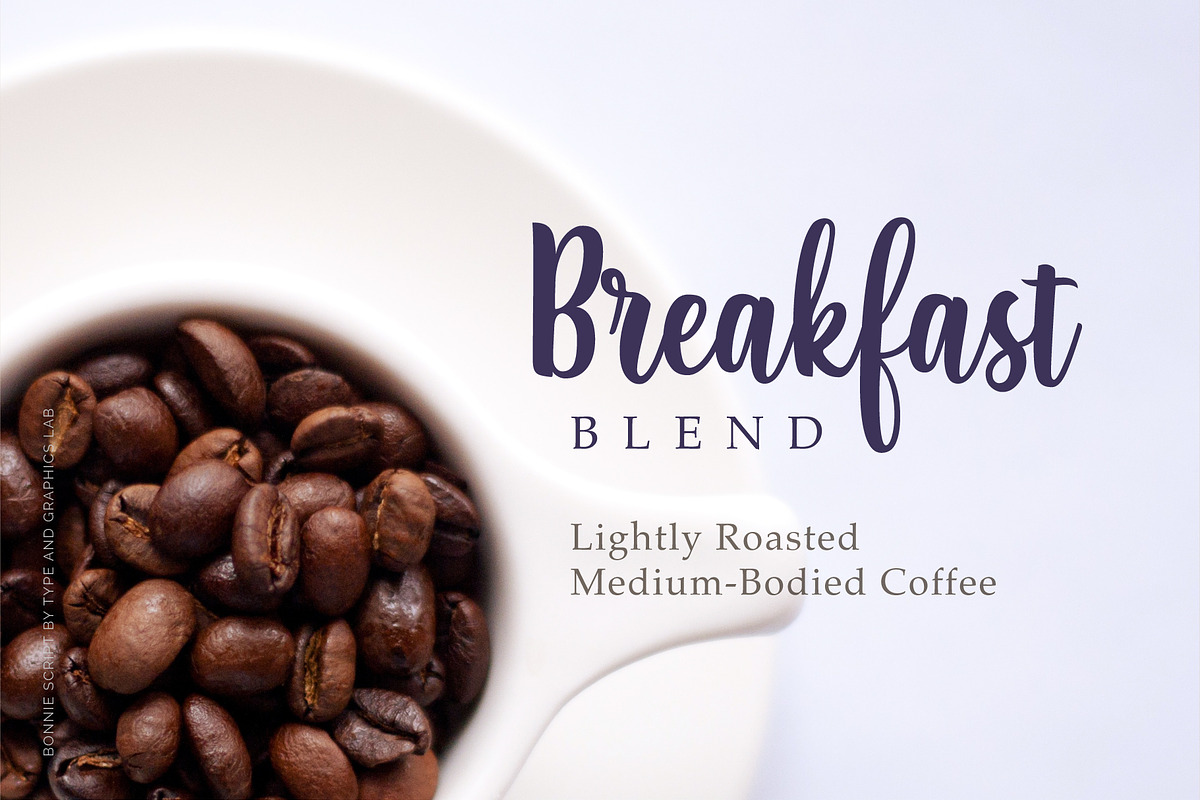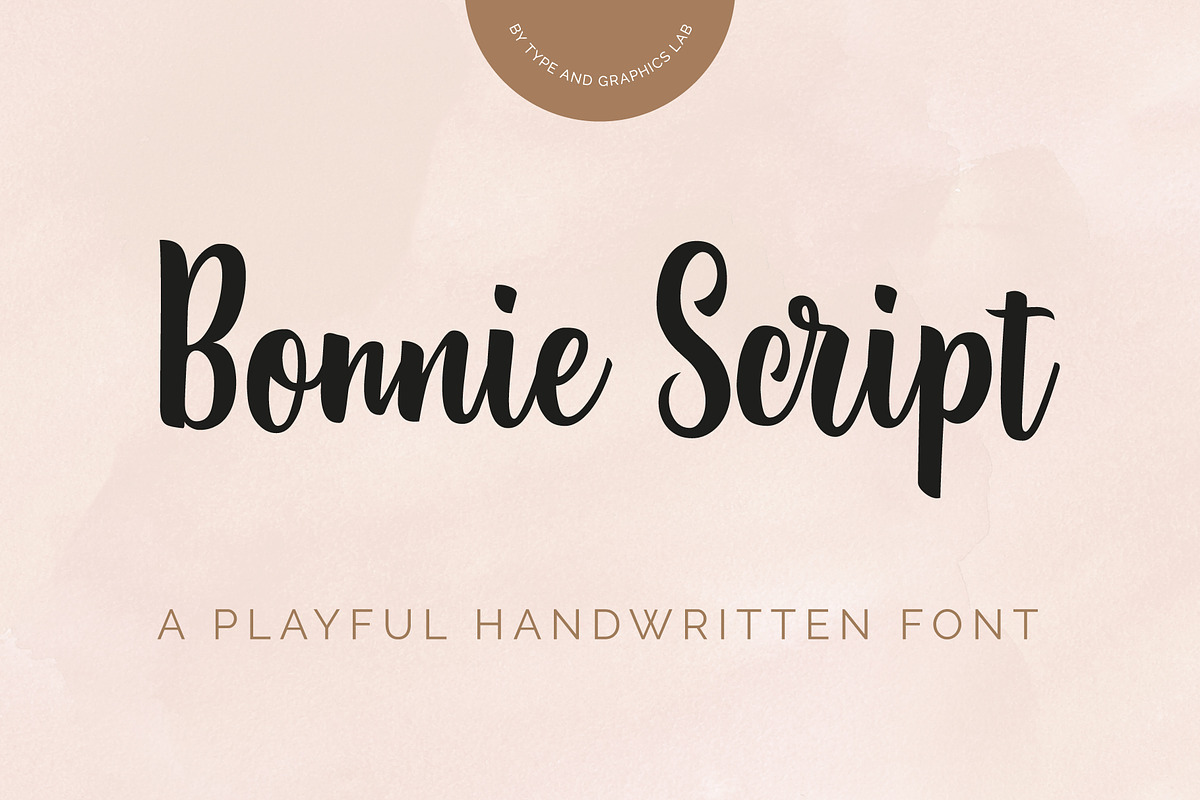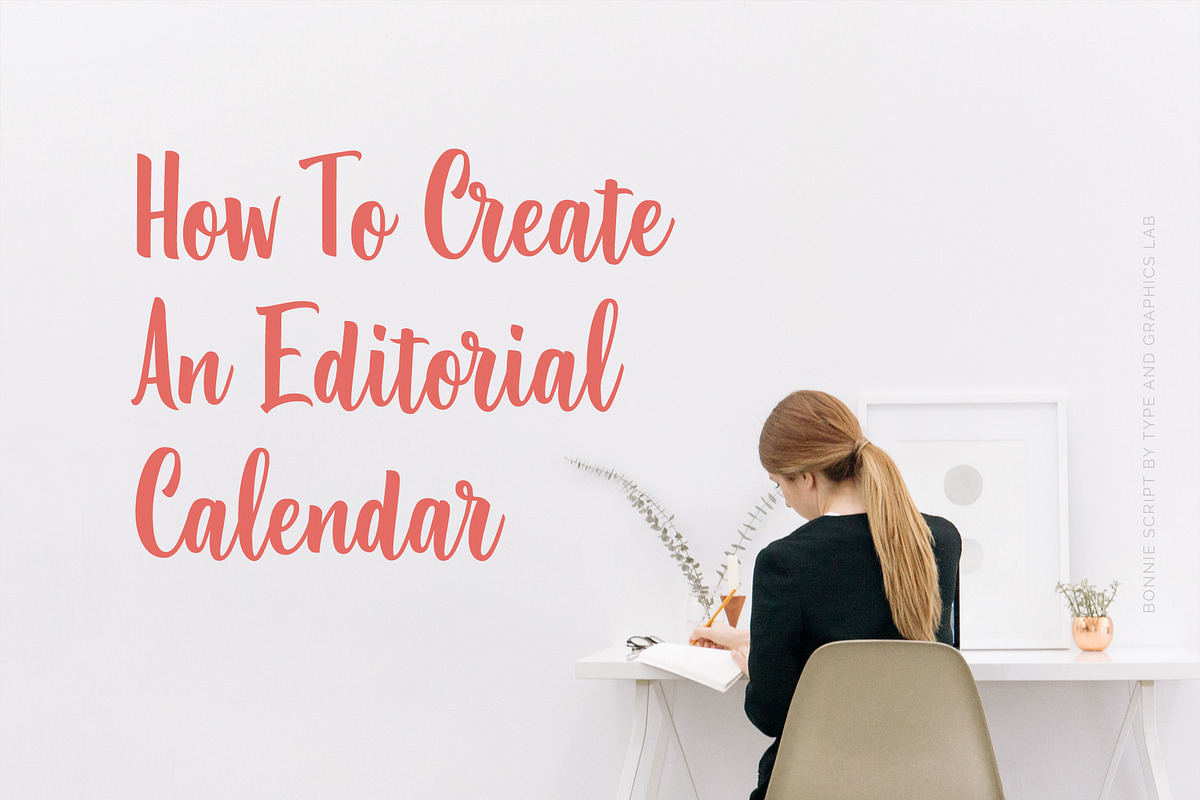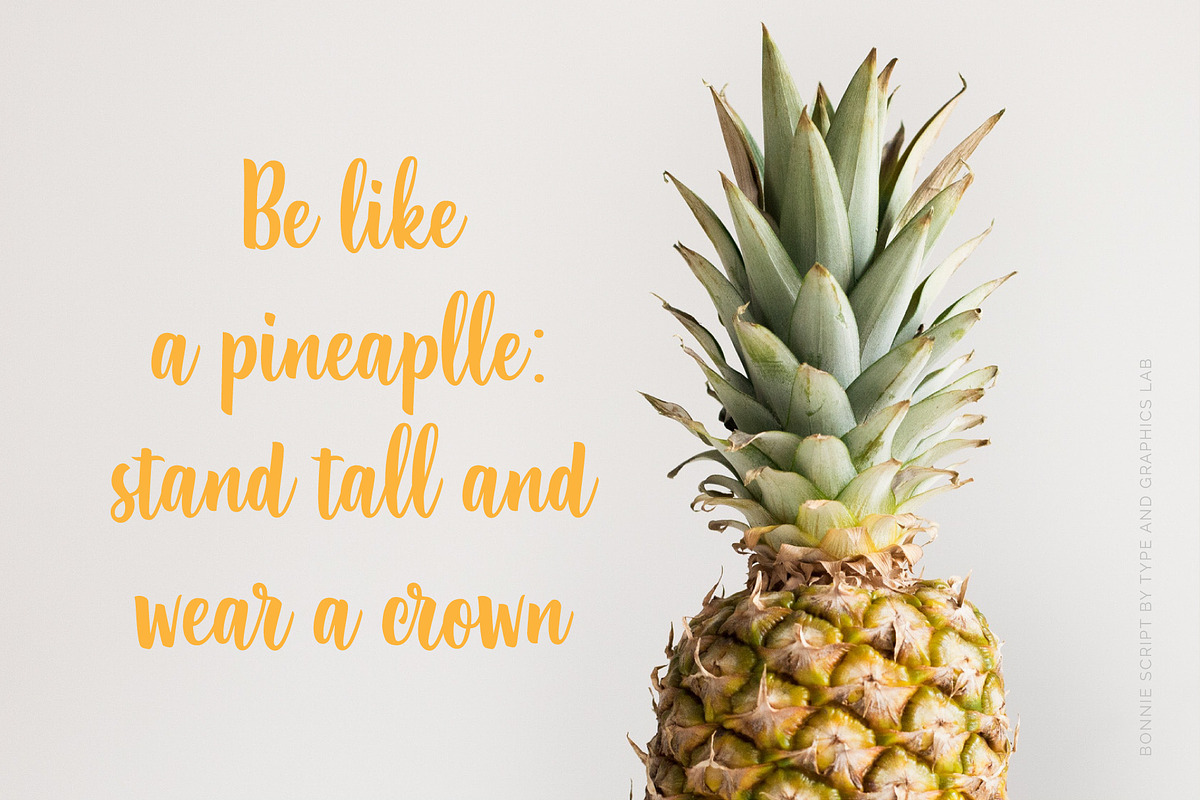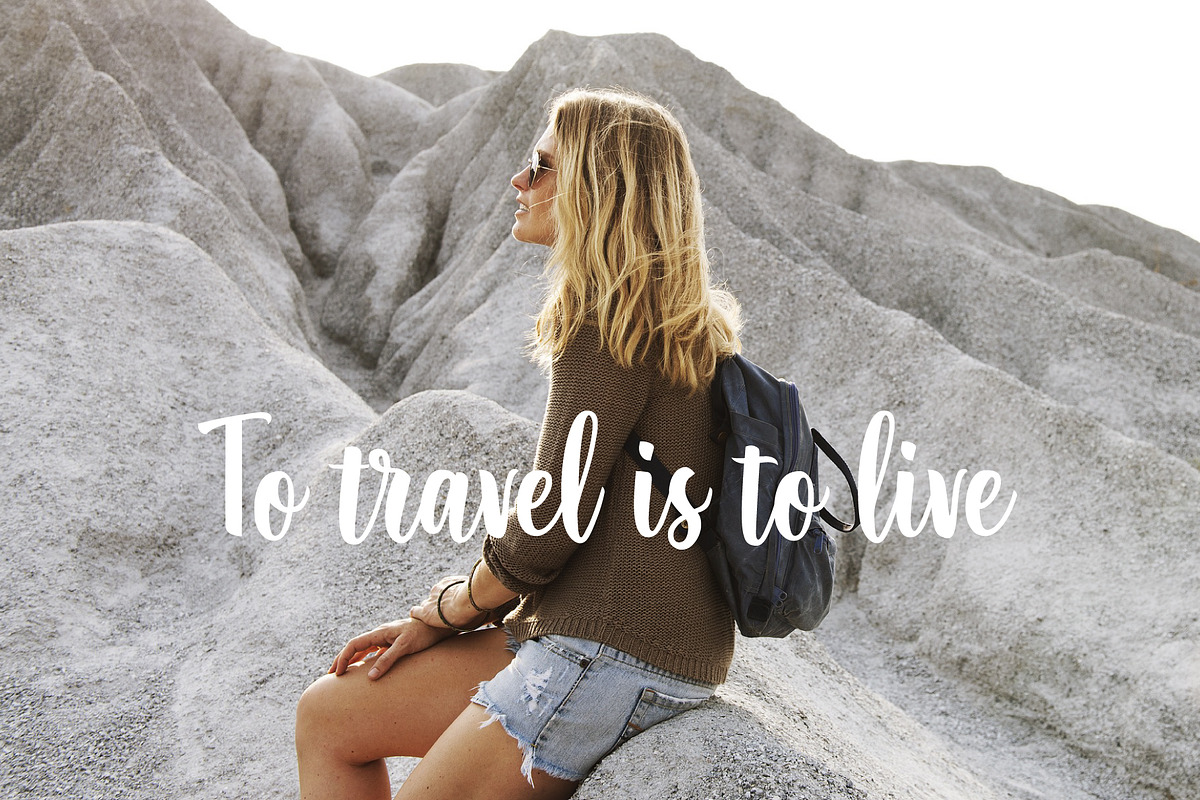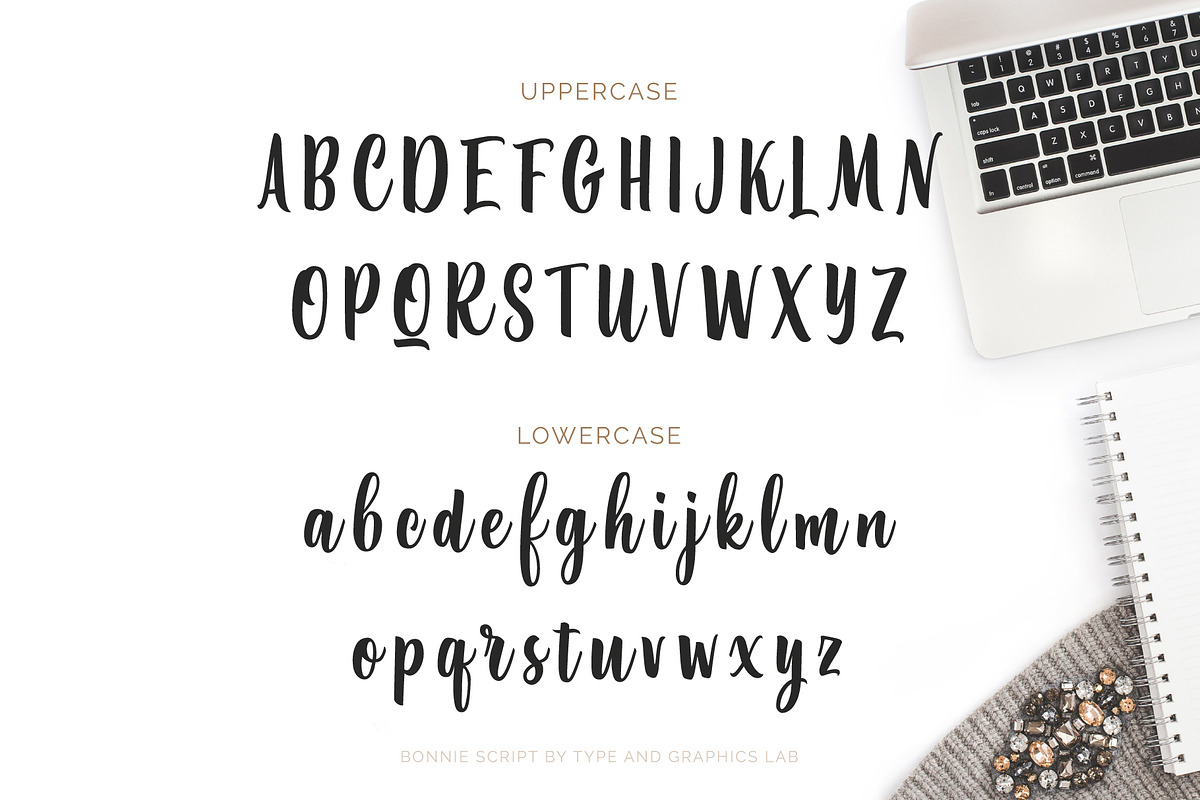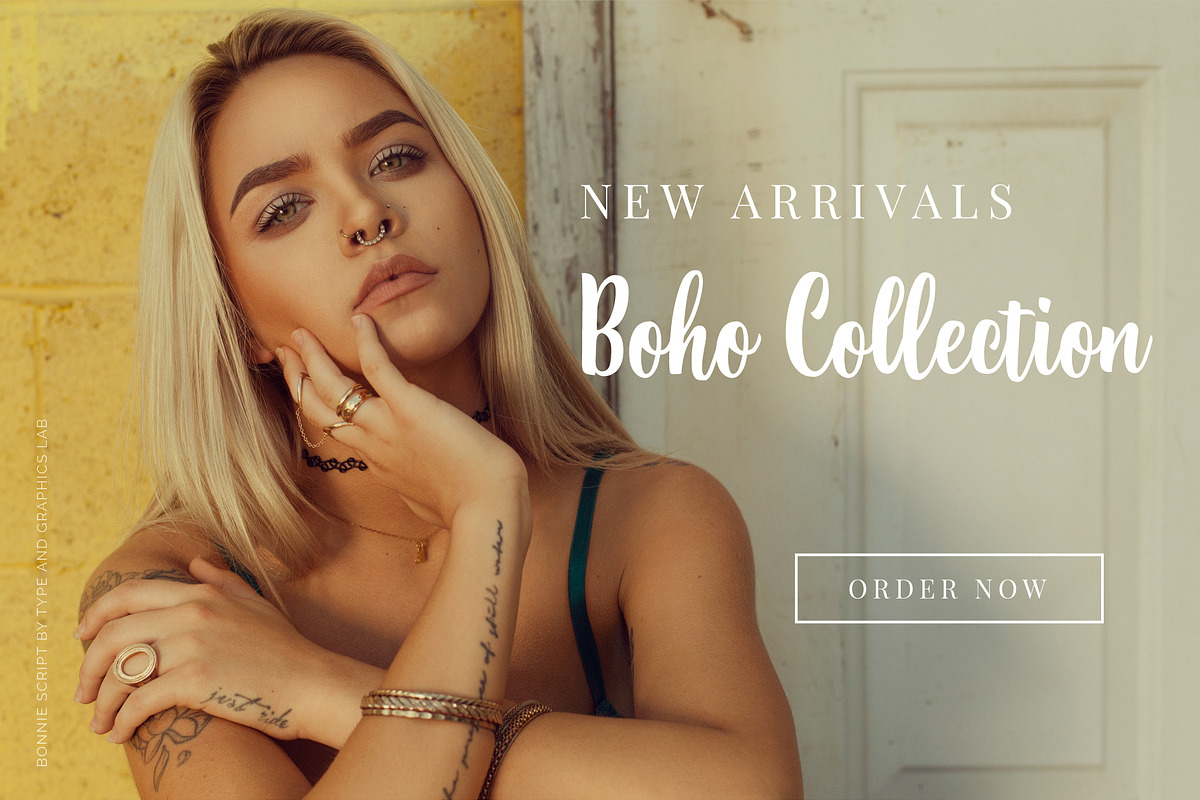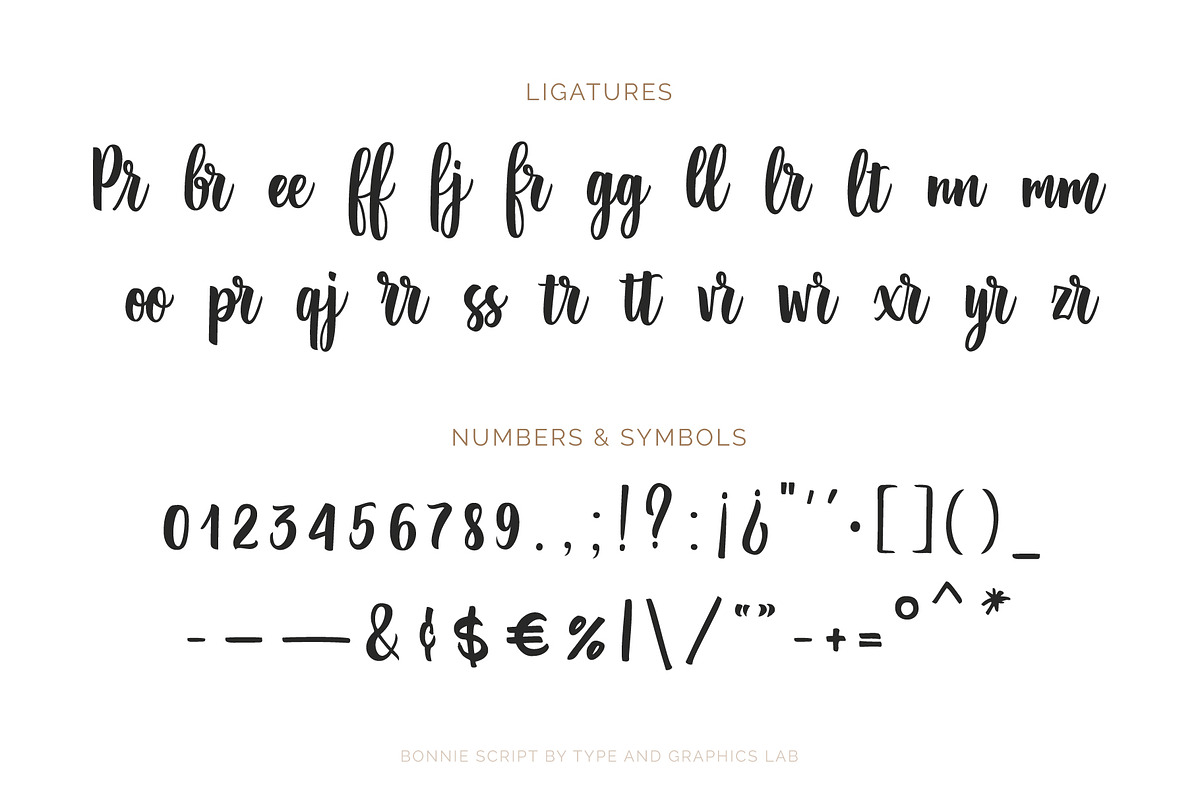
Bonnie Script
Introducing Bonnie Script, a new handwritten font with bold and playful character. It supports most European languages (all international characters are represented on the preview) plus it has a variety of ligatures to maintain a handwritten look and feel. Bonnie Script would be perfect for casual, feminine-looking yet vivid and playful designs, including logos & branding, social media posts, print & digital advertisements, product designs, wedding designs, and many more.